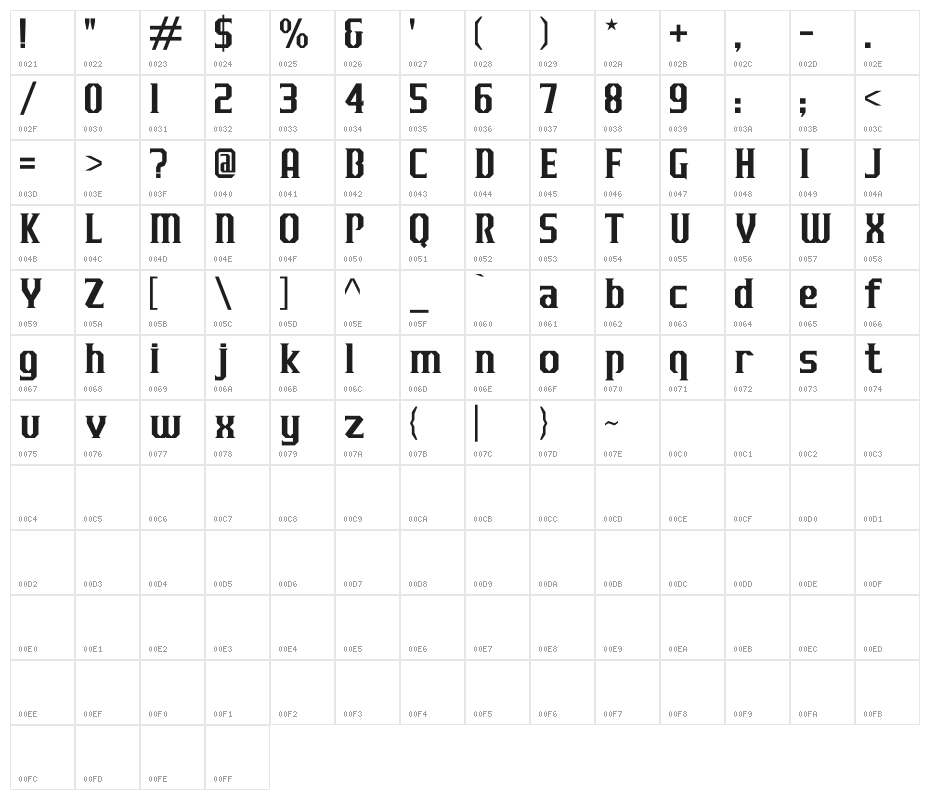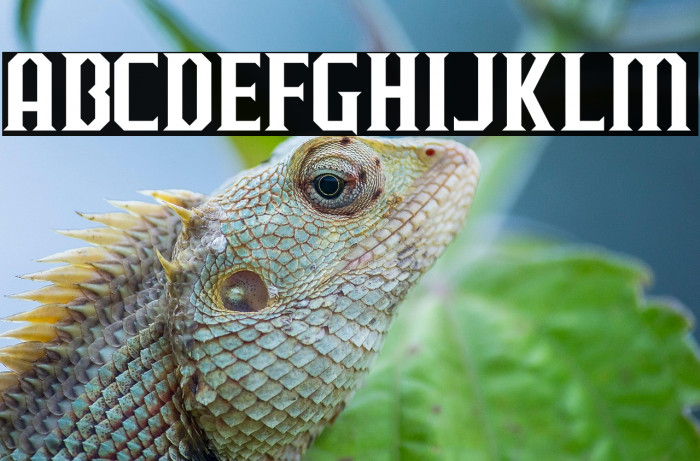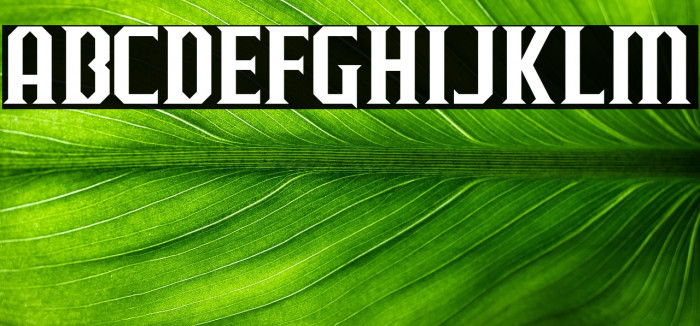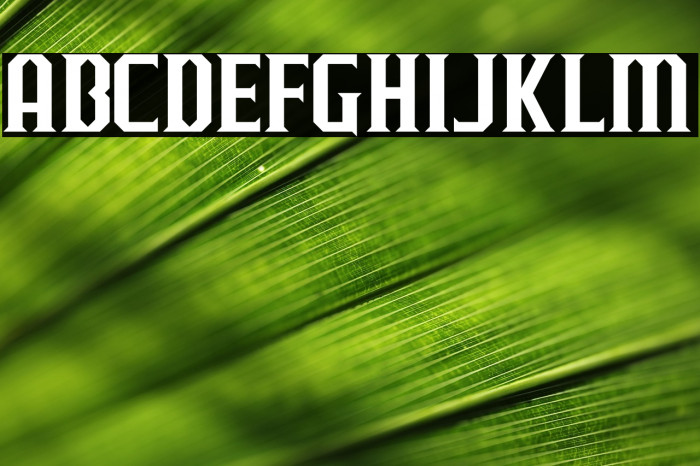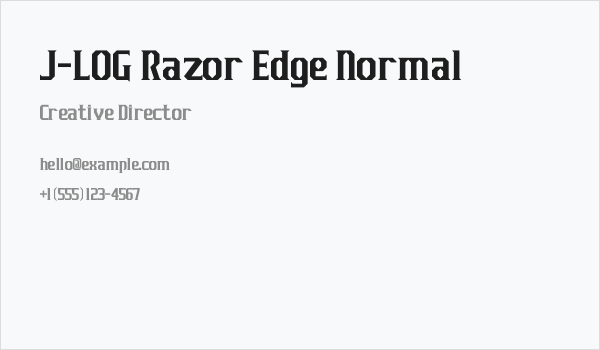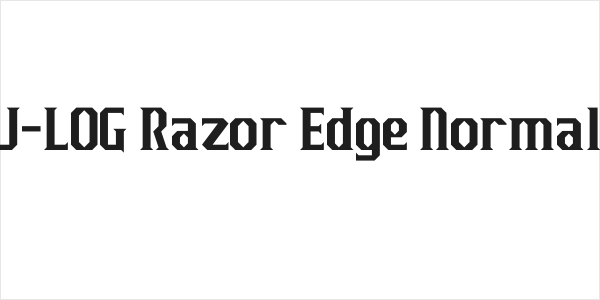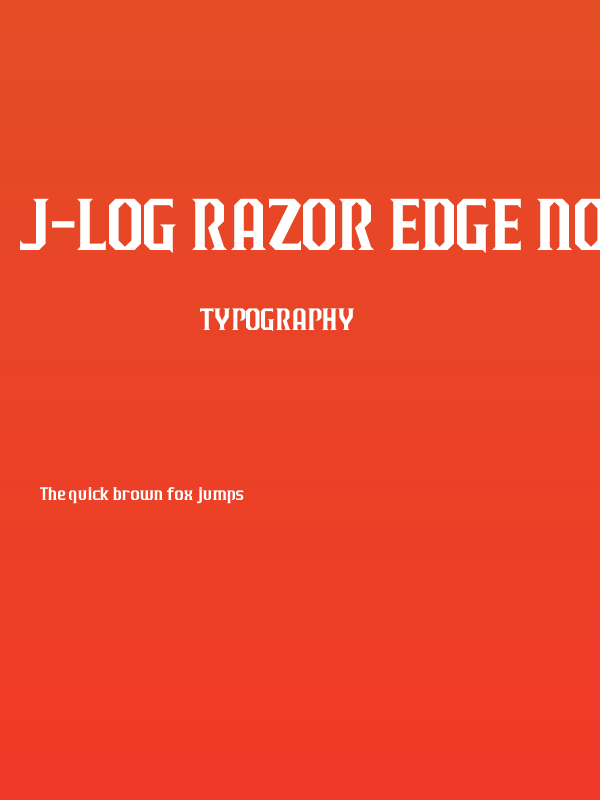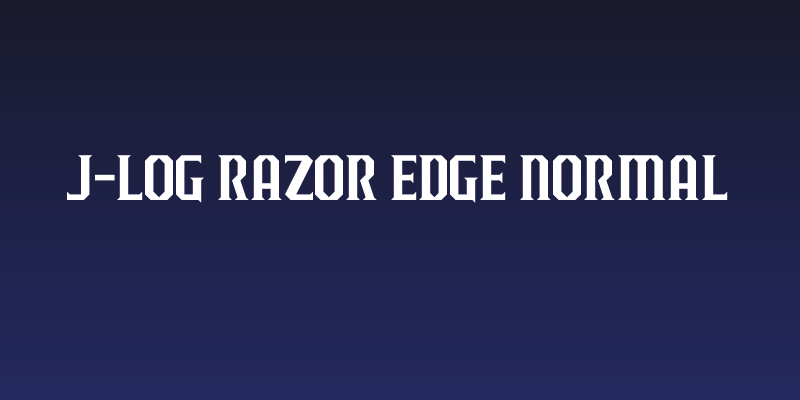
J-LOG Razor Edge Normal Font
J-LOG Razor Edge Normal Description
This font features a bold and angular design, characterized by sharp edges and a geometric structure. The uppercase letters are particularly striking, with a strong presence and a sense of authority. The lowercase letters maintain the same angular style, providing a cohesive look across the typeface. Numbers are equally bold, ensuring they stand out in any context. The special characters are designed to match the overall aesthetic, making them suitable for a variety of uses. This font's unique style makes it ideal for projects that require a strong visual impact.
Proposed ProjectsIdeal for branding, posters, headlines, and any design requiring a strong, impactful typeface.